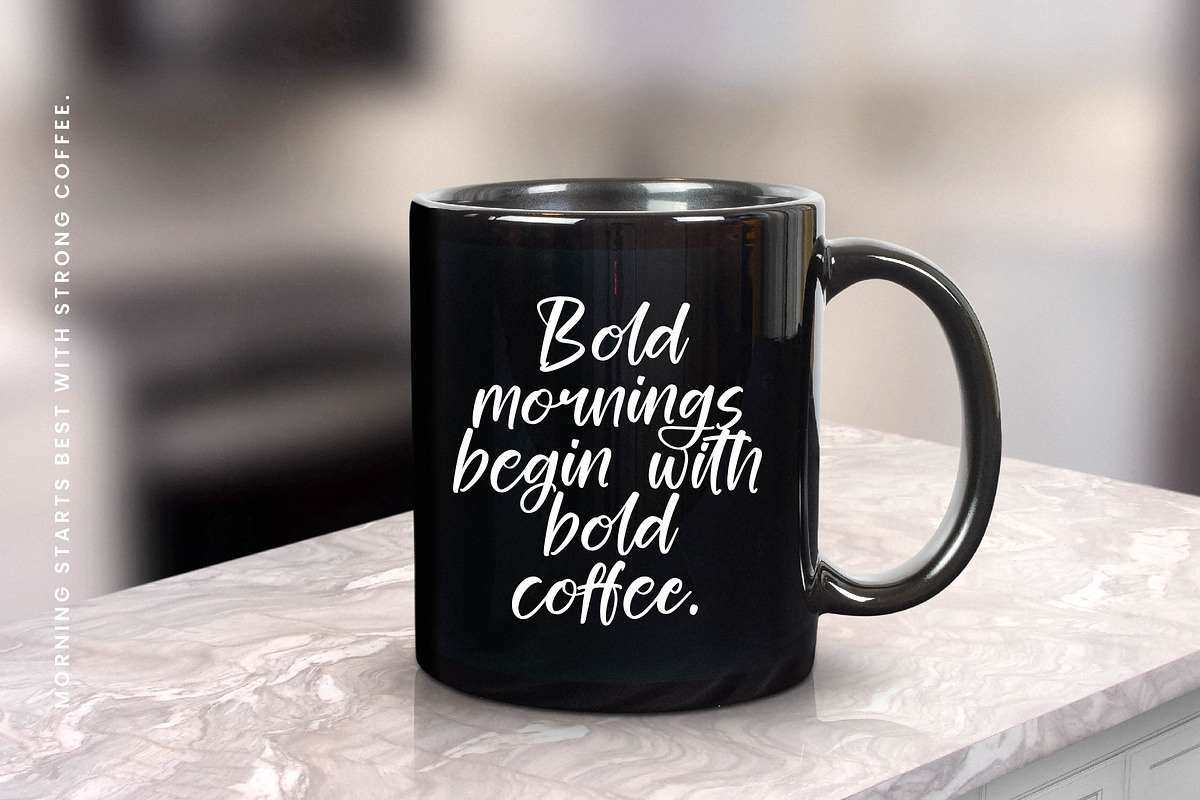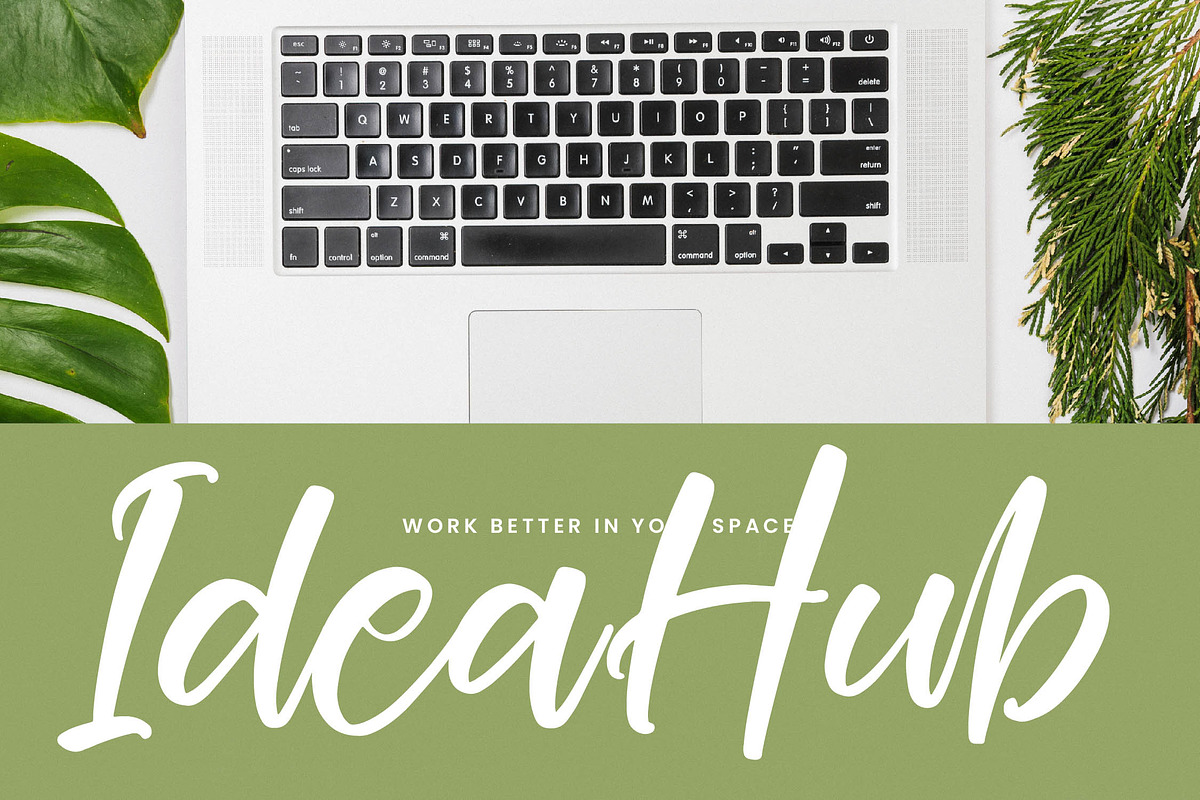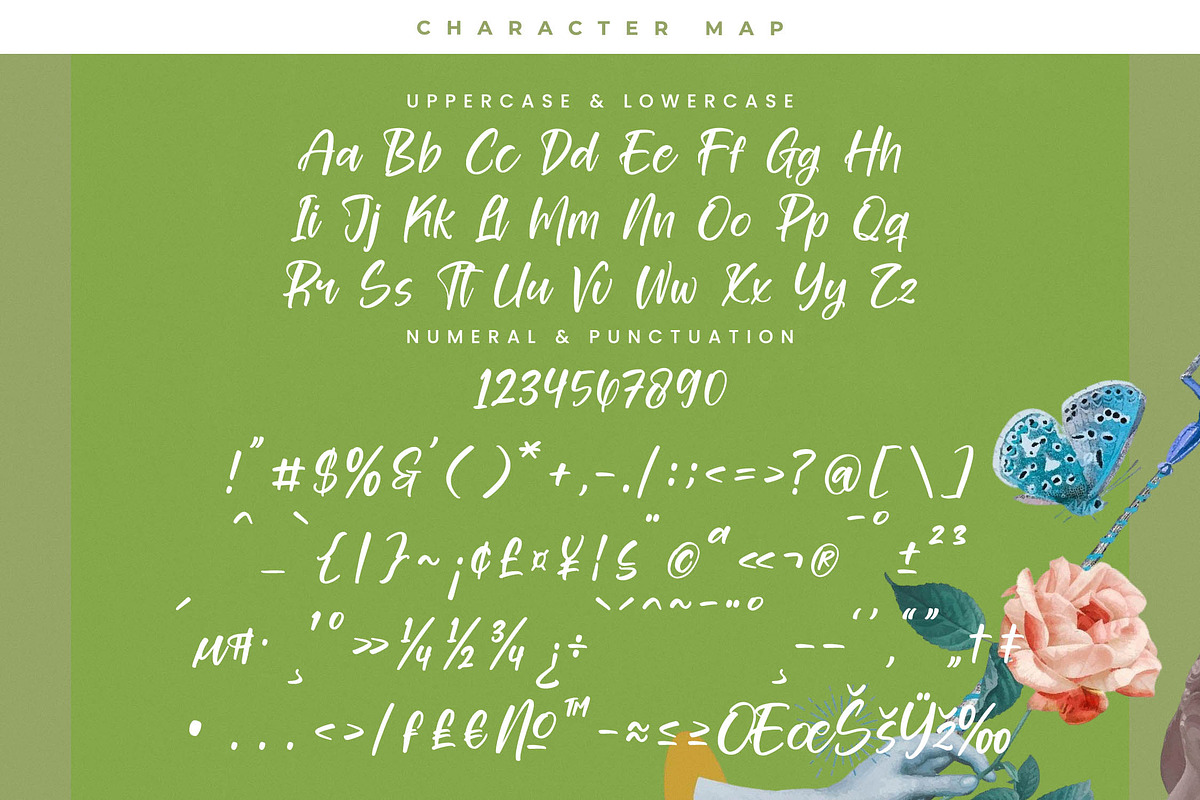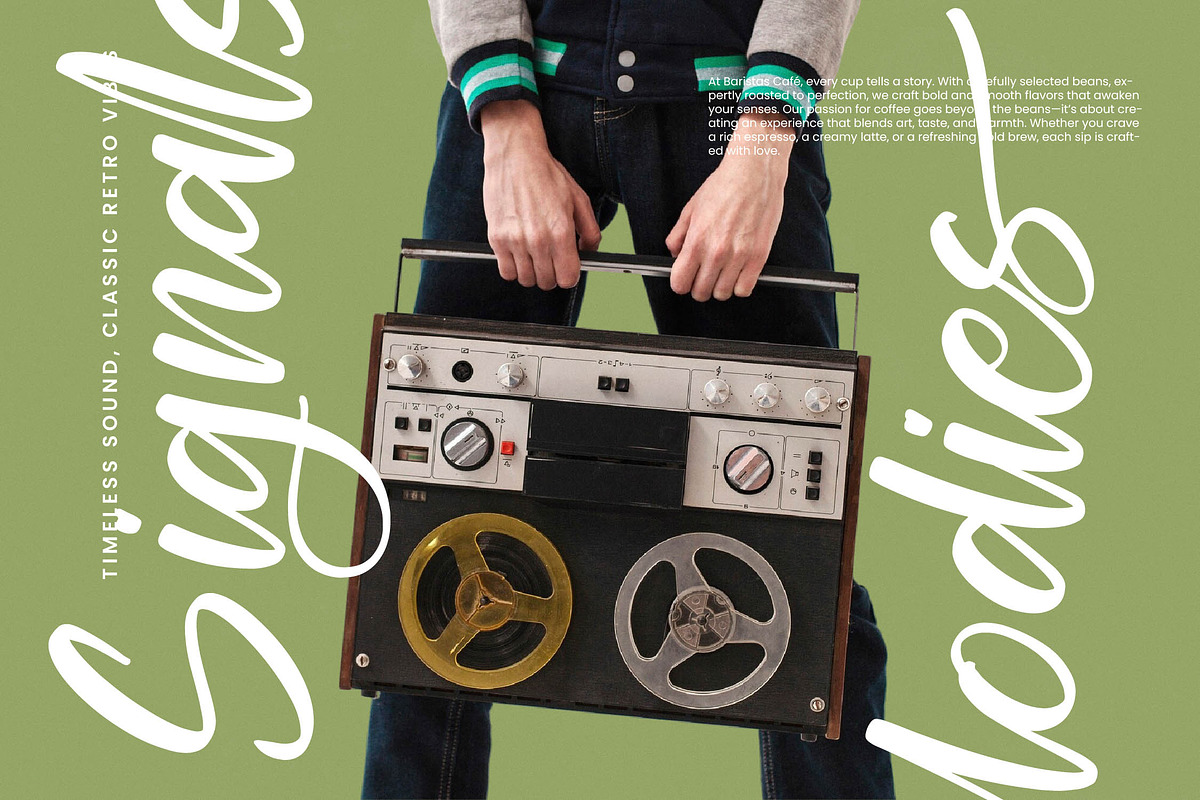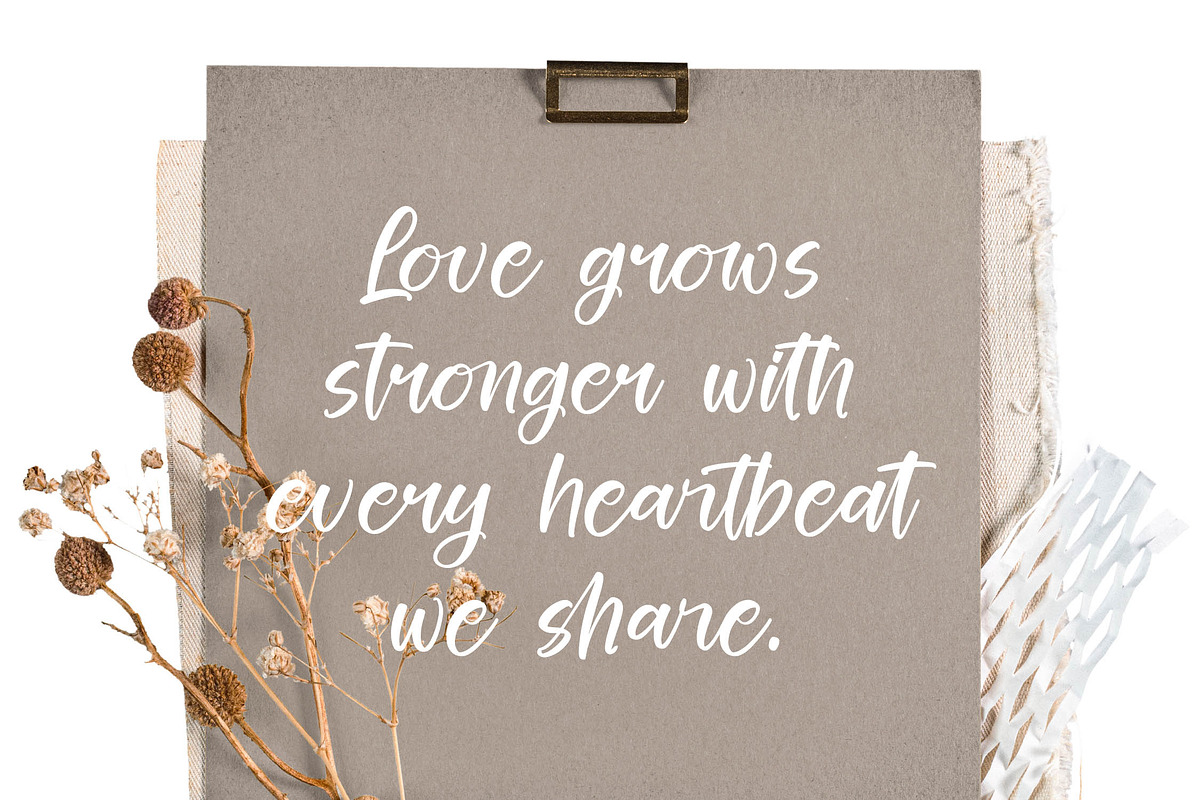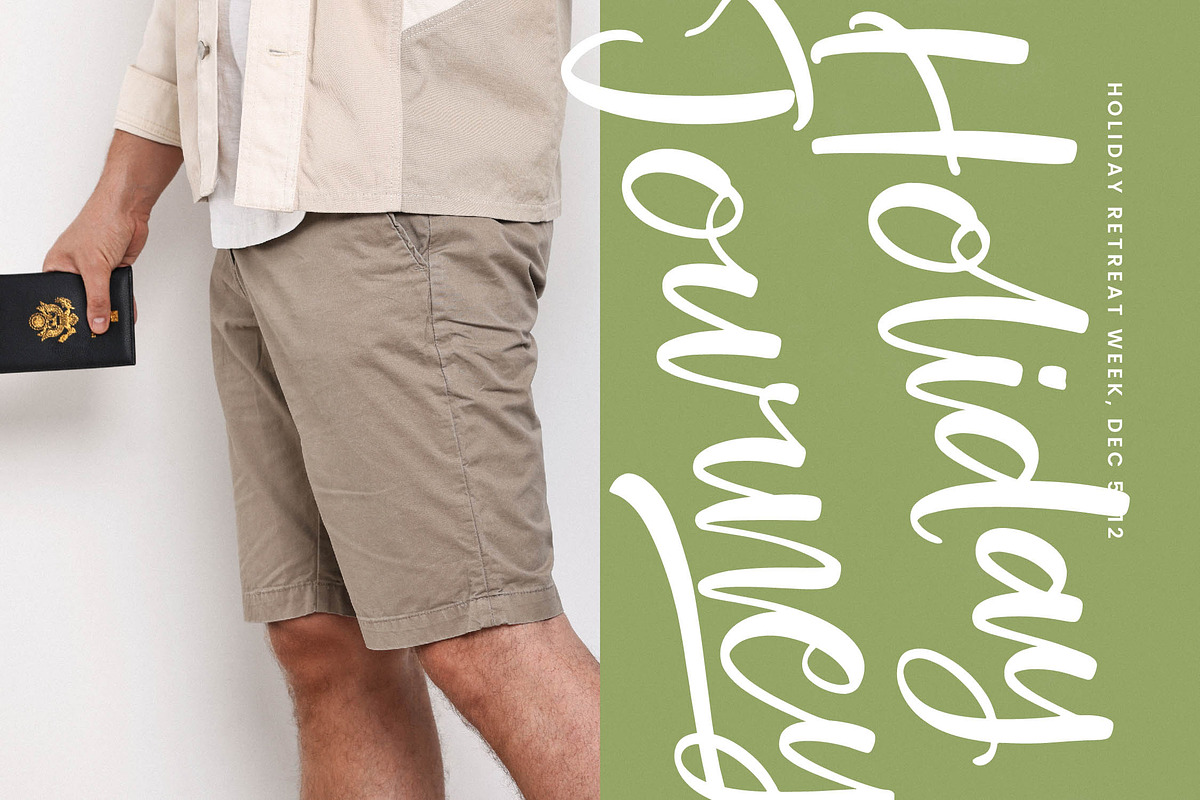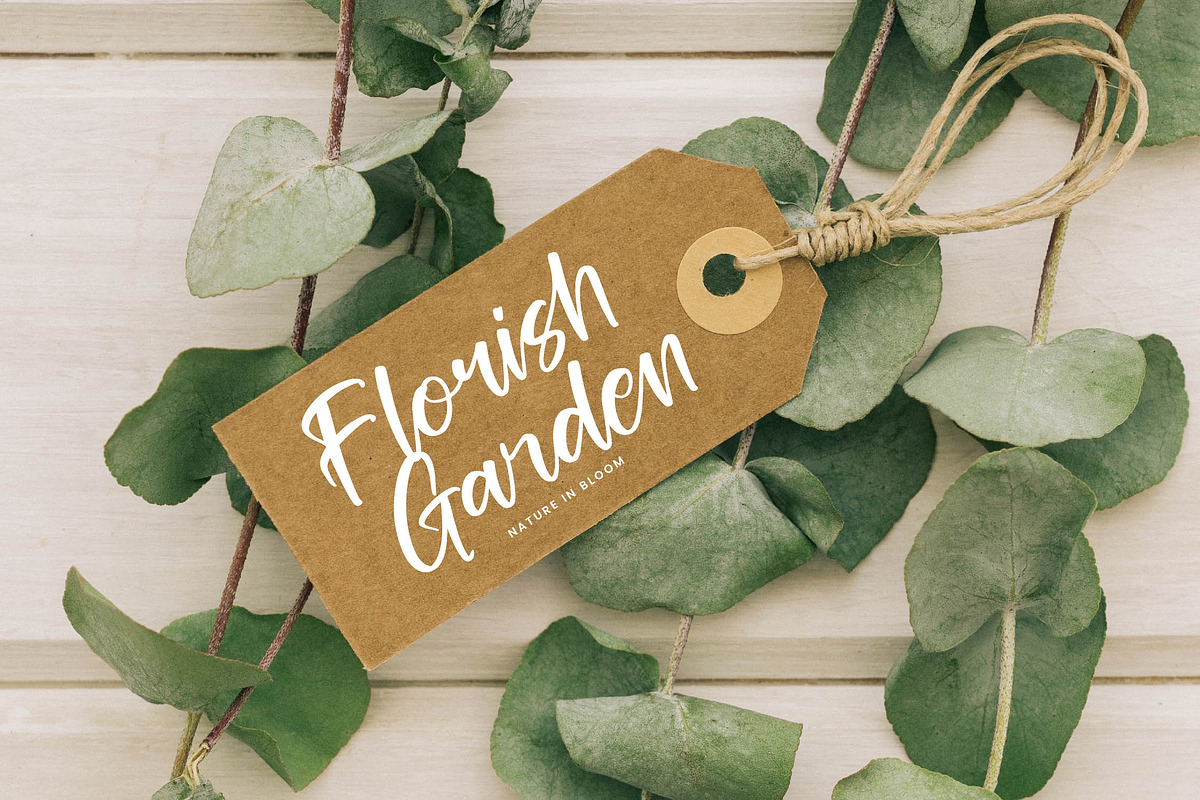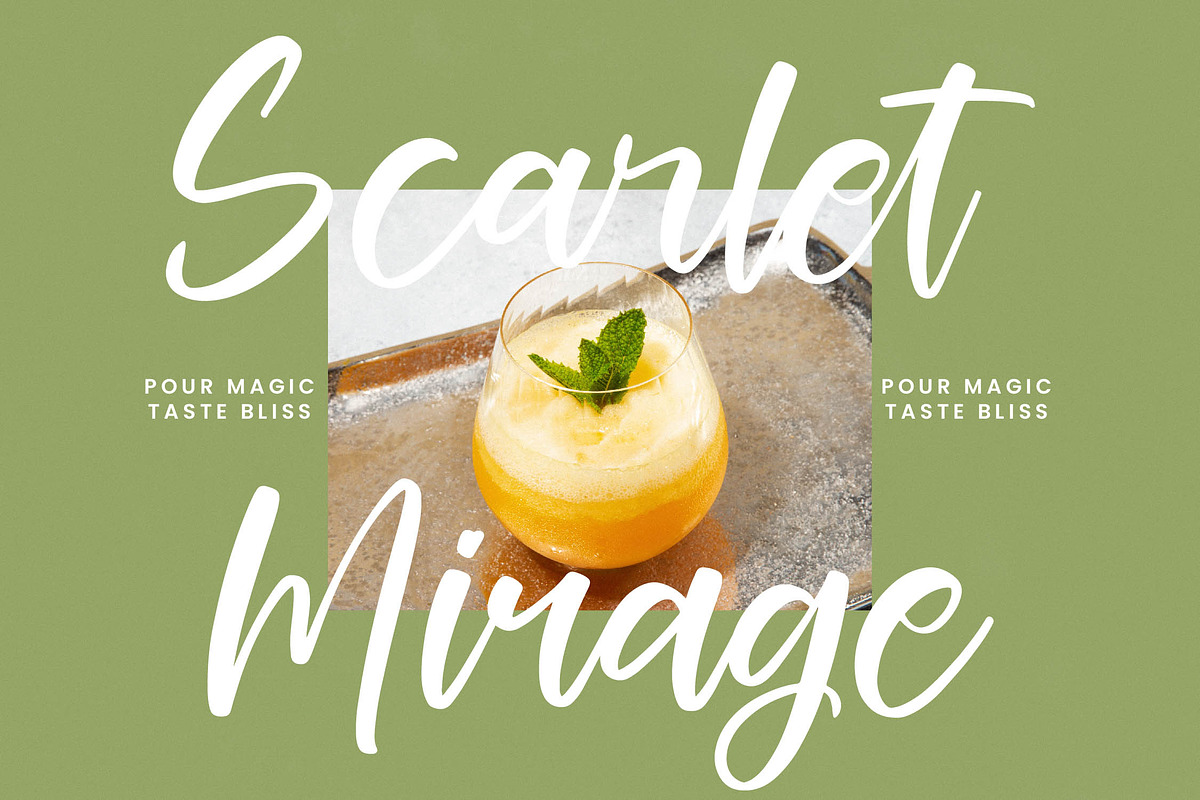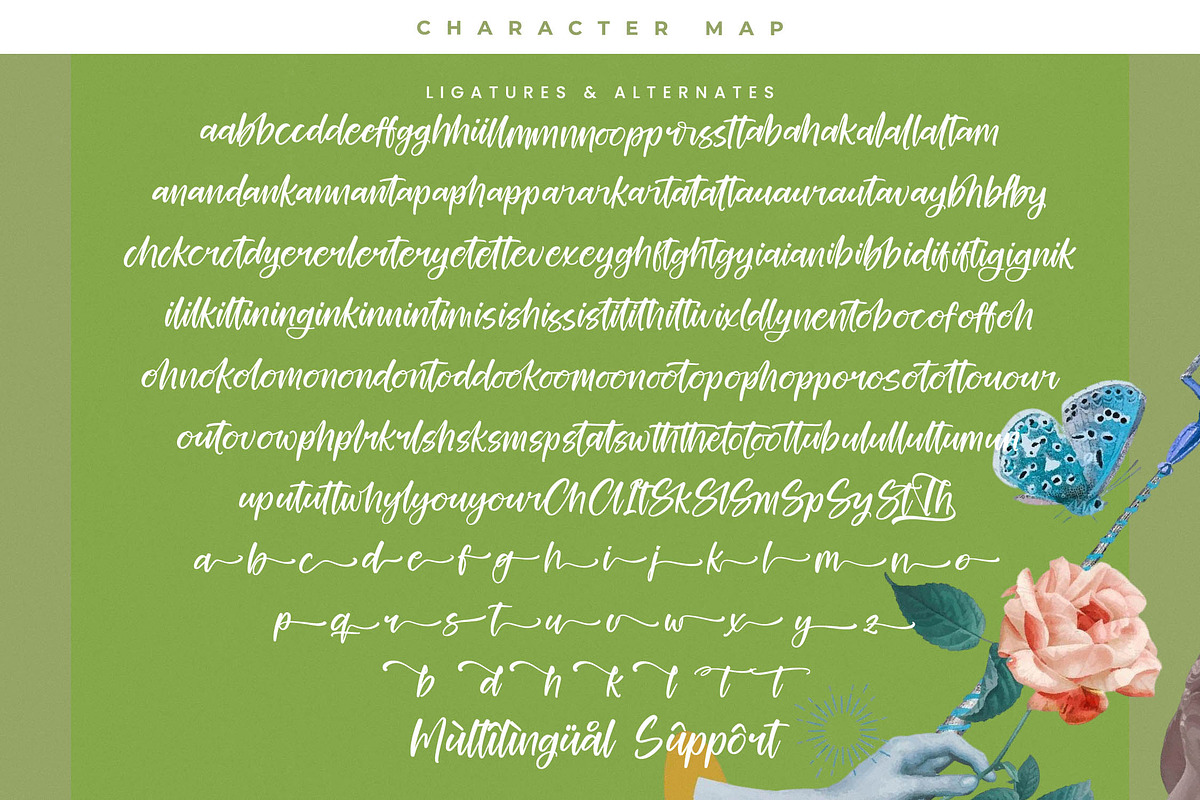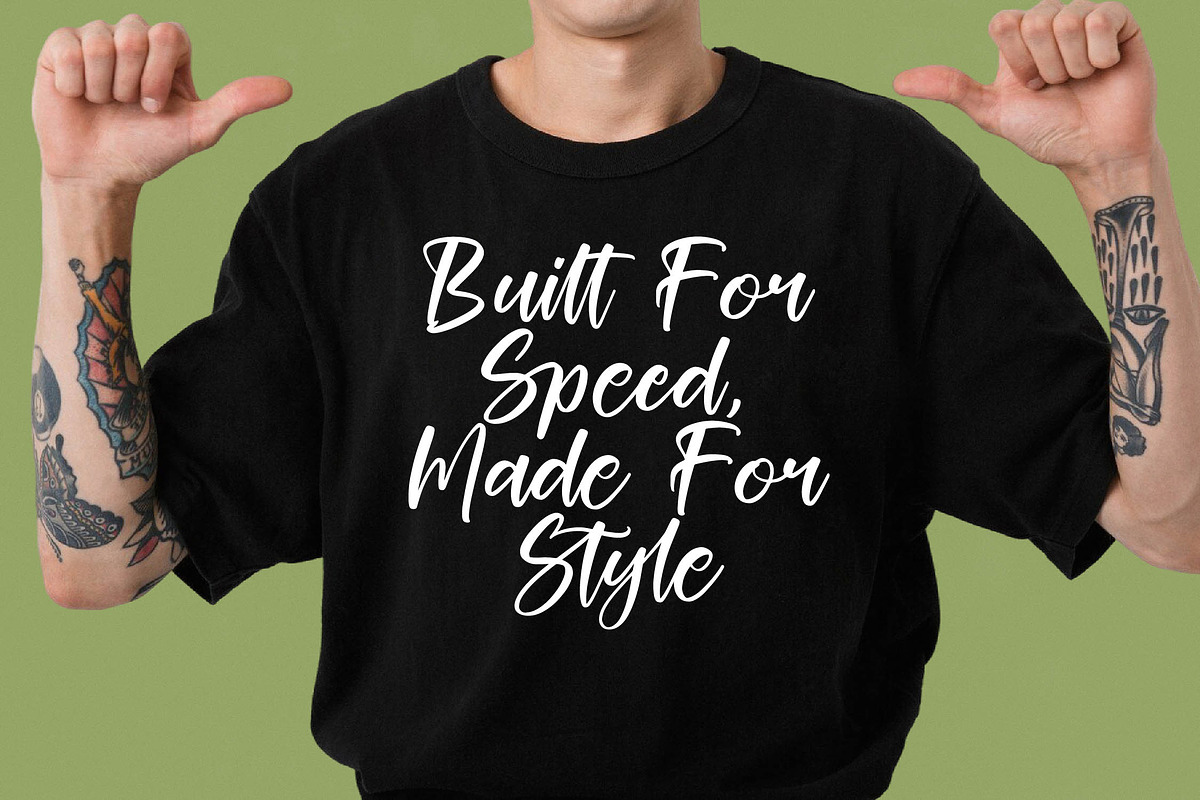
Glitters Sparkle Modern Handwritten
Glitters Sparkle - Modern Bold Handwritten Font , from Stylishtype.Co , Suitable for any projects such as: logos, branding projects, homeware designs, product packaging, mugs, quotes, posters, shopping bags, t-shirts, book covers, name card, invitation cards, greeting cards, label, photography, watermark, special events, and all your other luxury and beautiful projects that need a Luxury Script taste.
- 173 Ligature 54 Alternates & Swashes